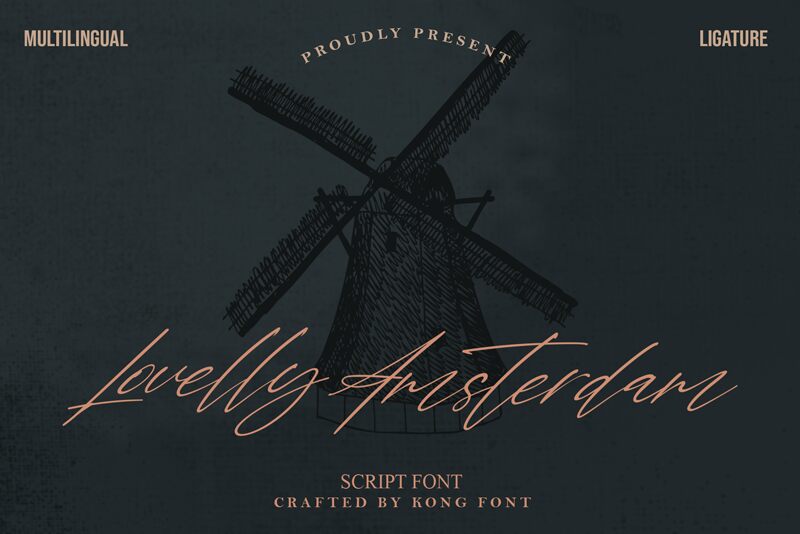
Lovelly Amsterdam font family by Kong Font consists of 4 free font handwritten font styles. Born from natural beauty and elegance, this typeface brings attention to its fluidity and refined visual appearance. It conveys a sense of formality but also friendliness and joy. Designed in connection with its users, it attracts and holds their attention with a unique personal touch and rich details.
This font is recommended for use in wedding stationery, branding, social media, logos, or quotes. Its multistyle nature gives it a wide range of typographic possibilities in both display and body texts.